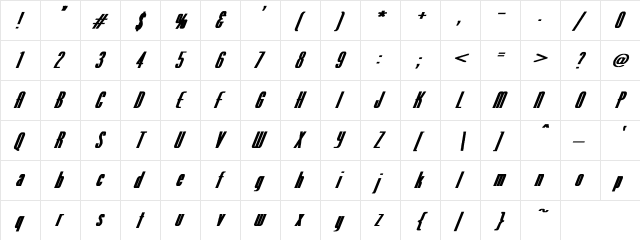
Venus-Normal Ex Bold Italic Regular
Design Context for Venus-Normal Ex Bold Italic Typeface
Venus-Normal Ex Bold Italic offers clean, dependable letterforms without strong stylistic allegiance, making it a practical choice for designers who need flexibility. The slanted form adds forward momentum and visual energy. The heavy weight commands attention and anchors typographic hierarchies.